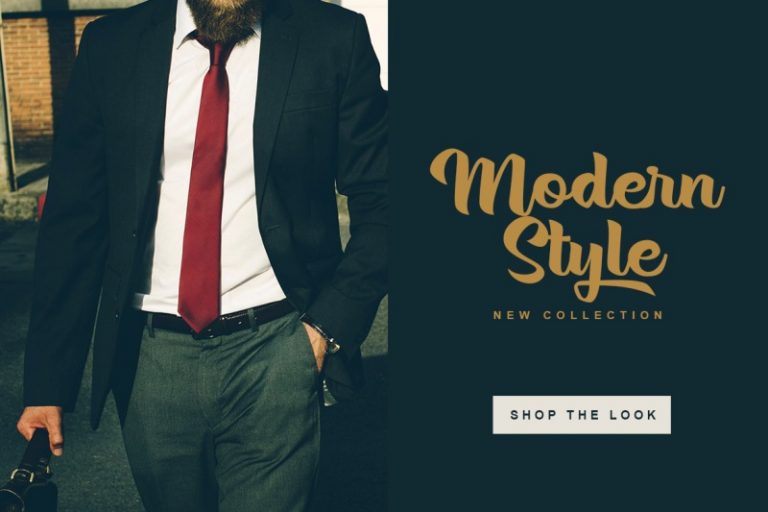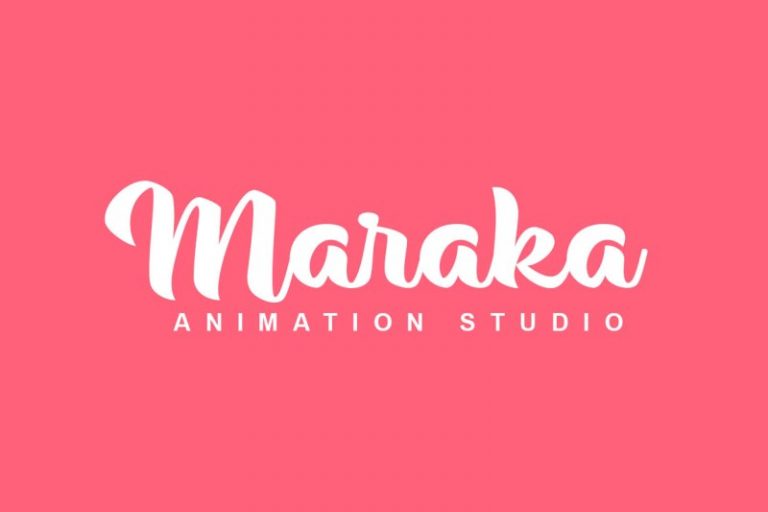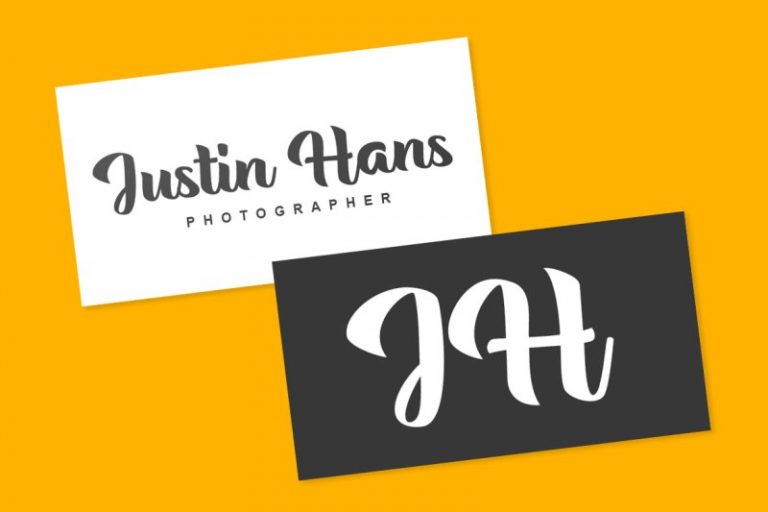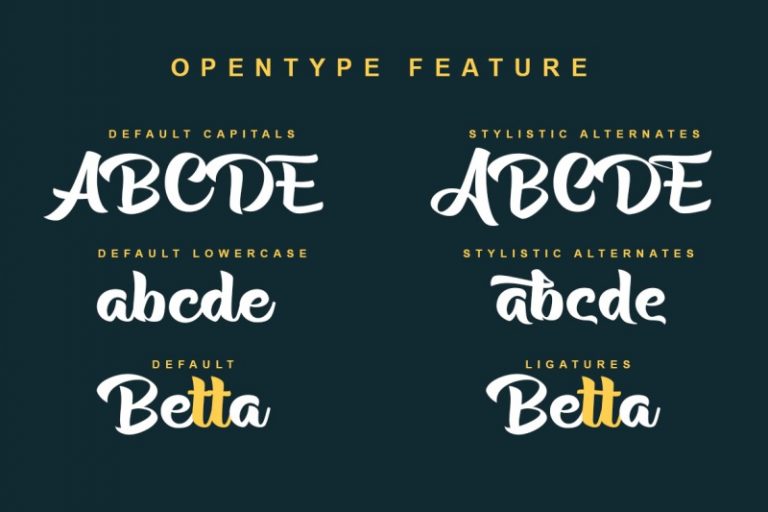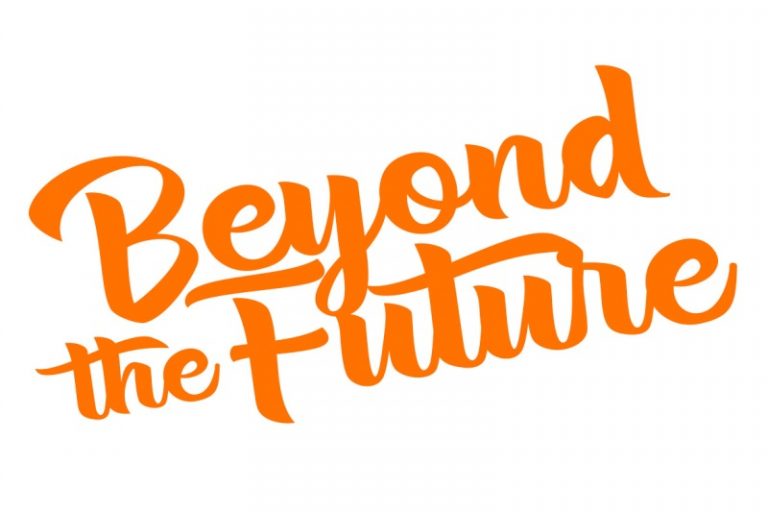
Rentuck
The Rentuck font is modern handmade font, dinamic and also has beautiful opentype features. The Rentuck font is great for Branding, Logo Design, Lettering,Logotype, Clothing, Poster, magazine and other design project.
• Opentype Features (Ligature, Alternate, Swash, Stylistic Set)